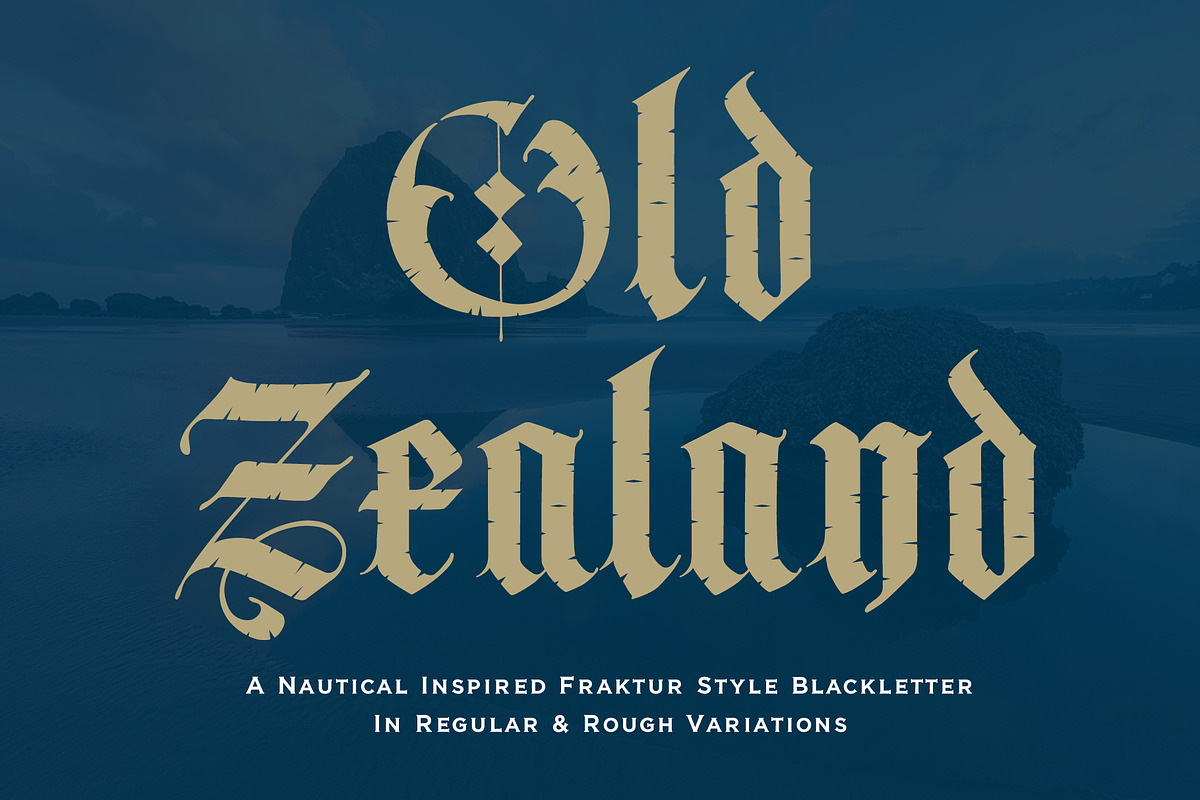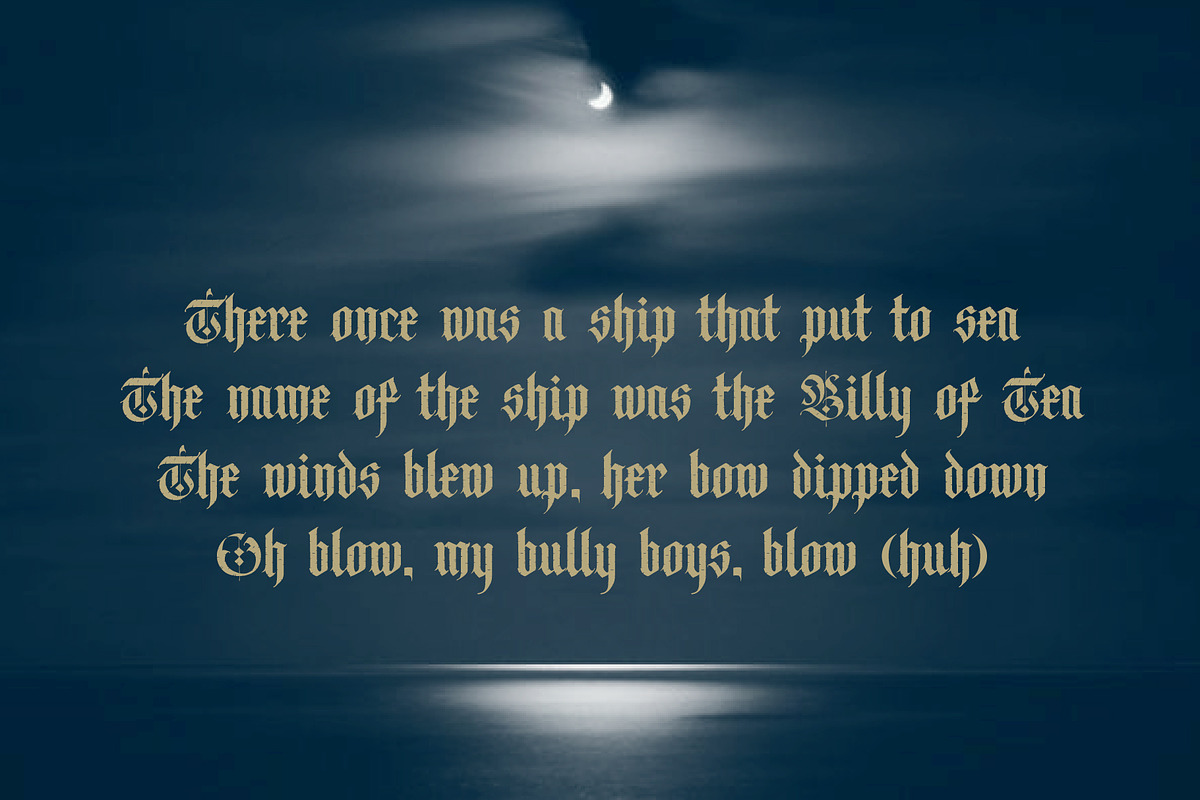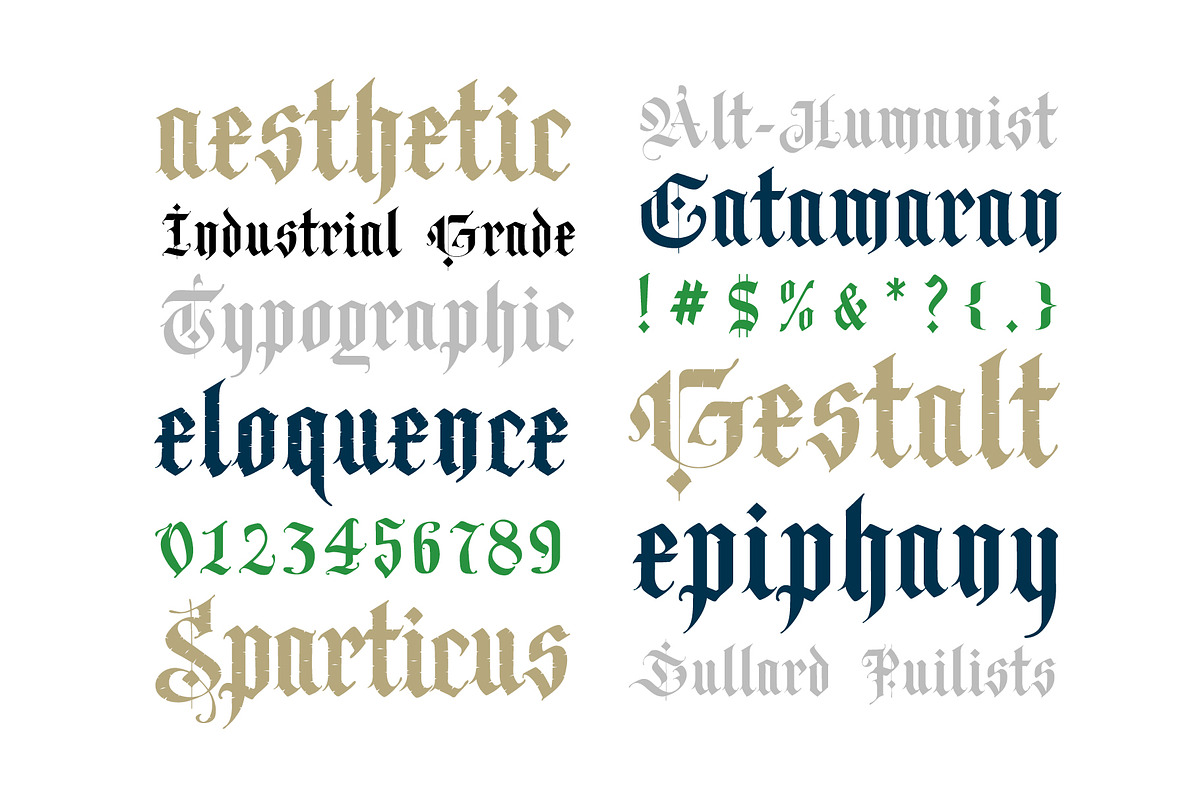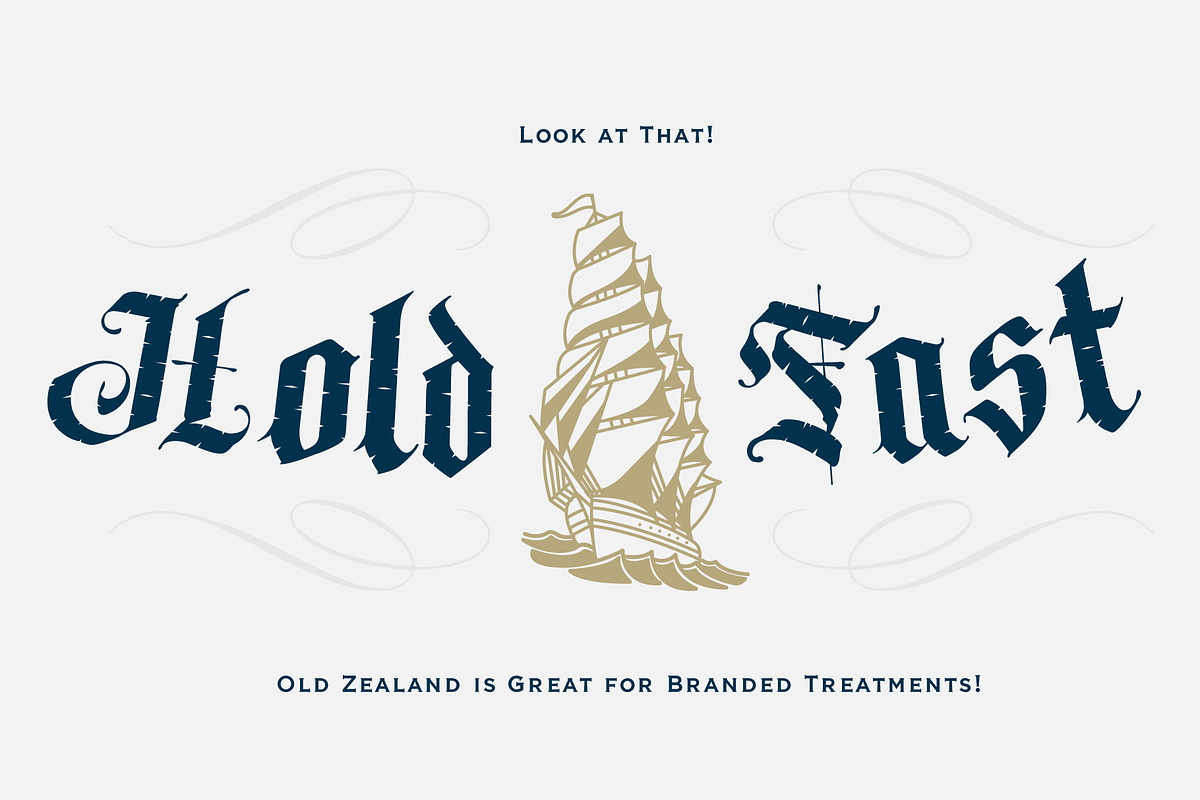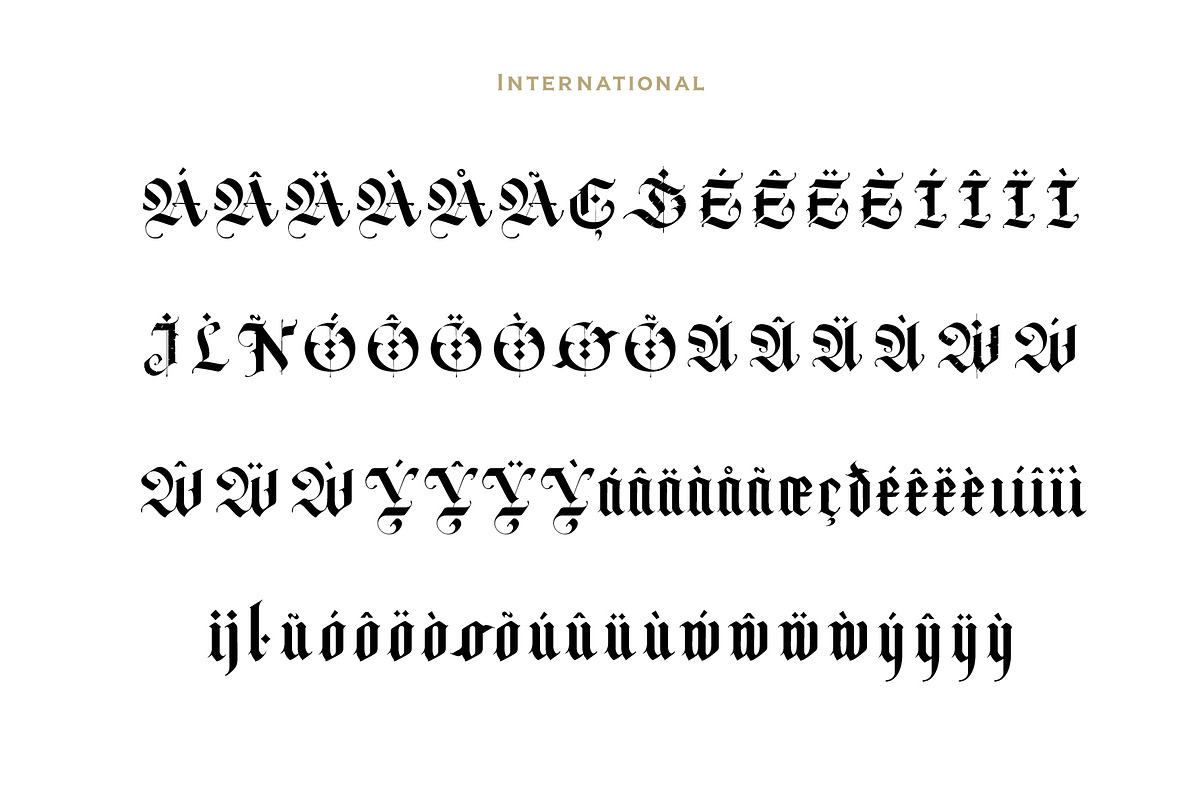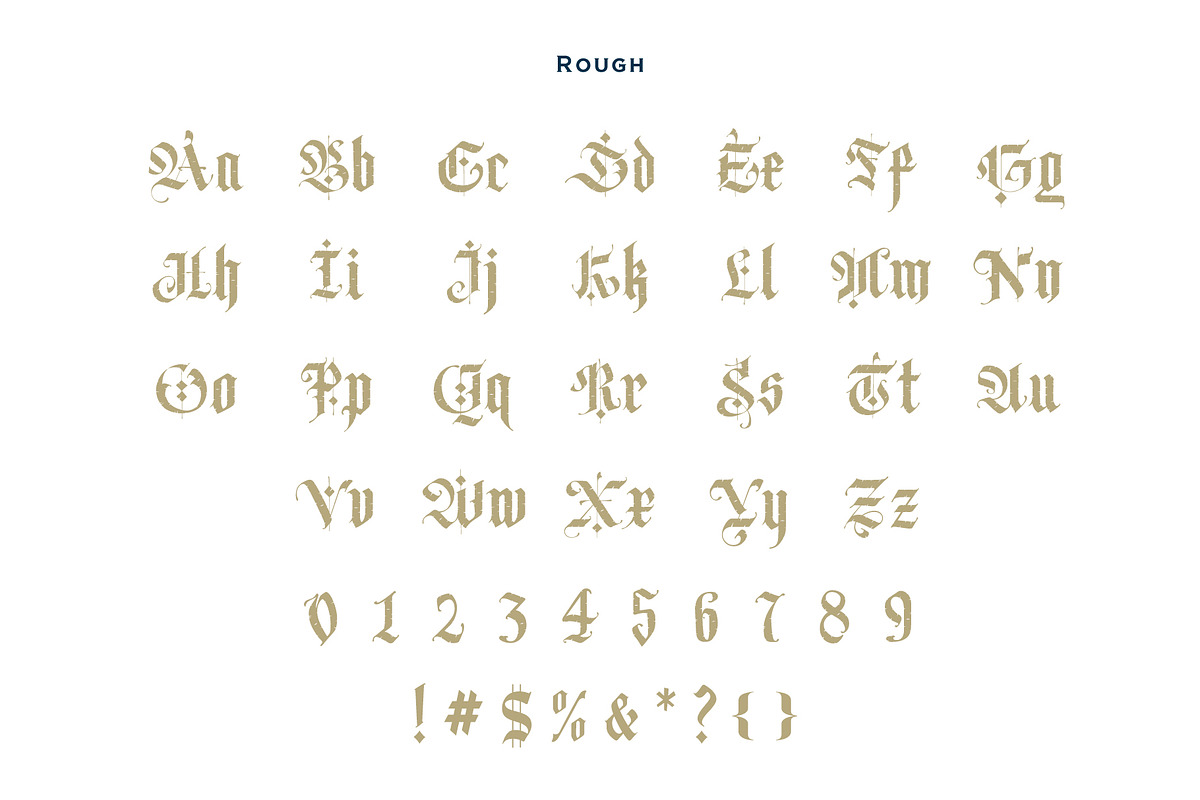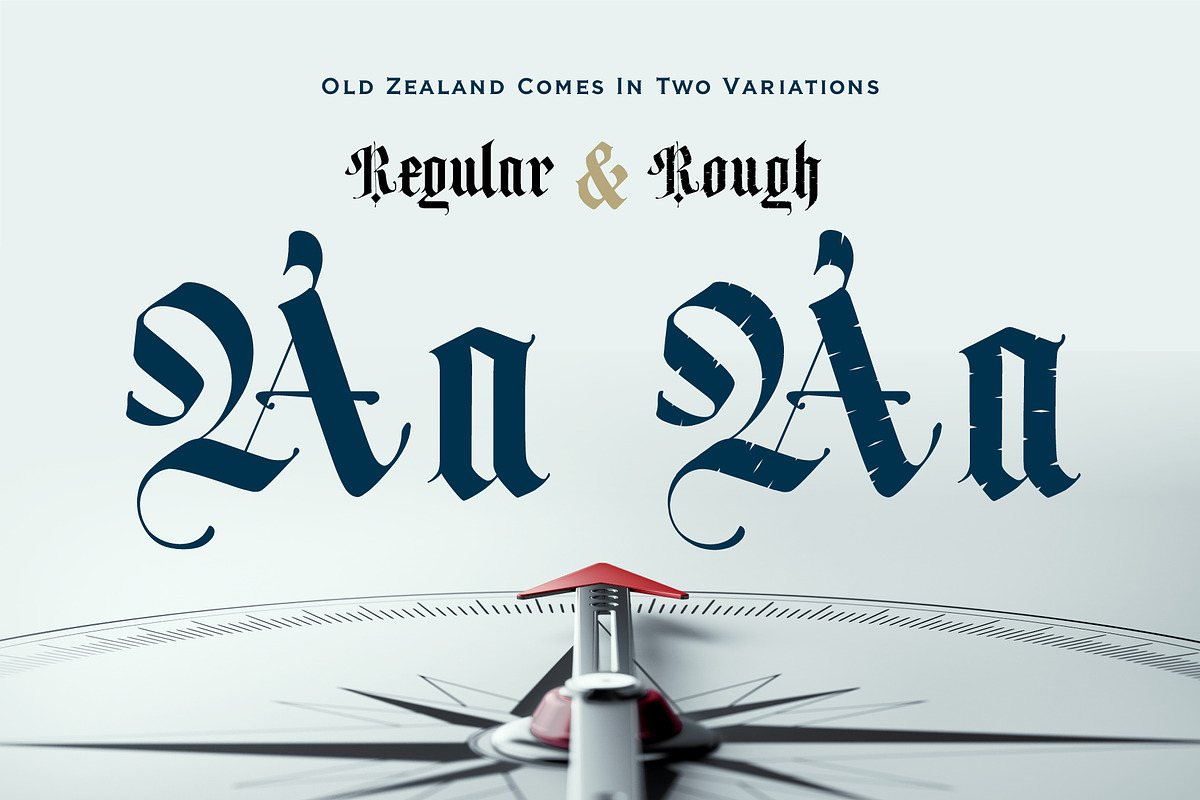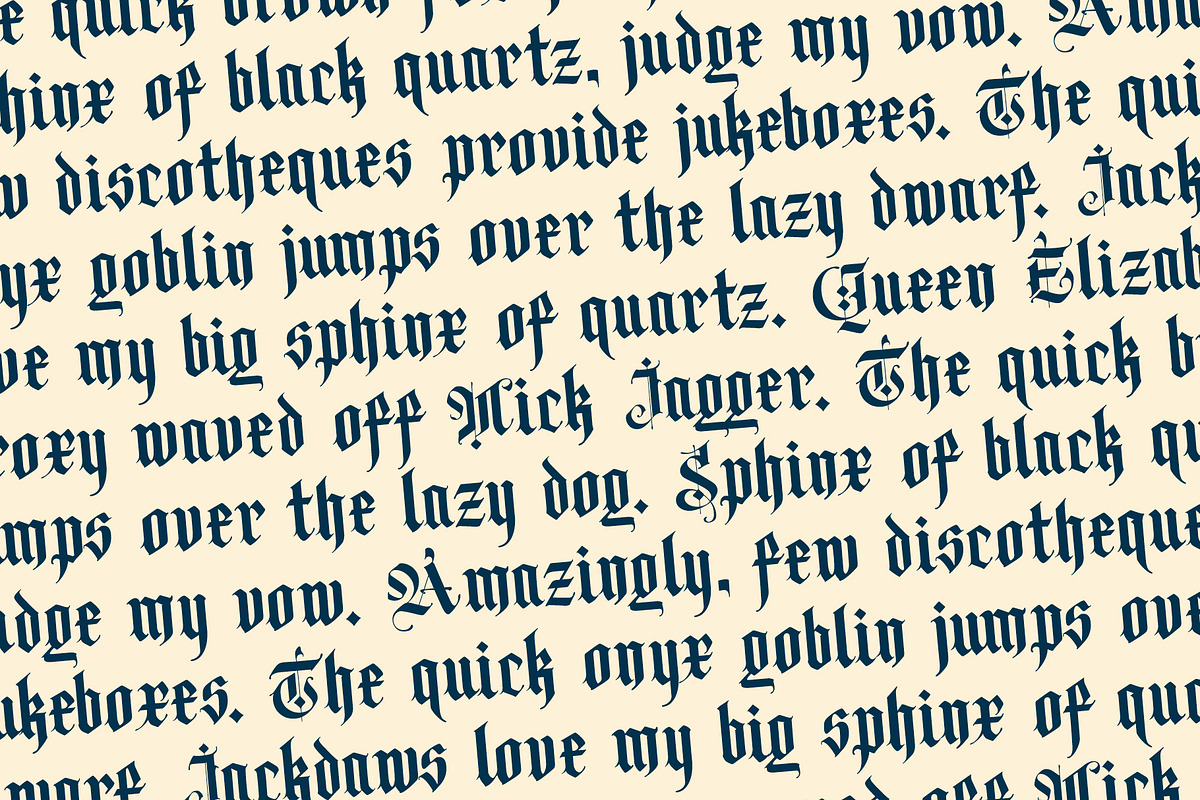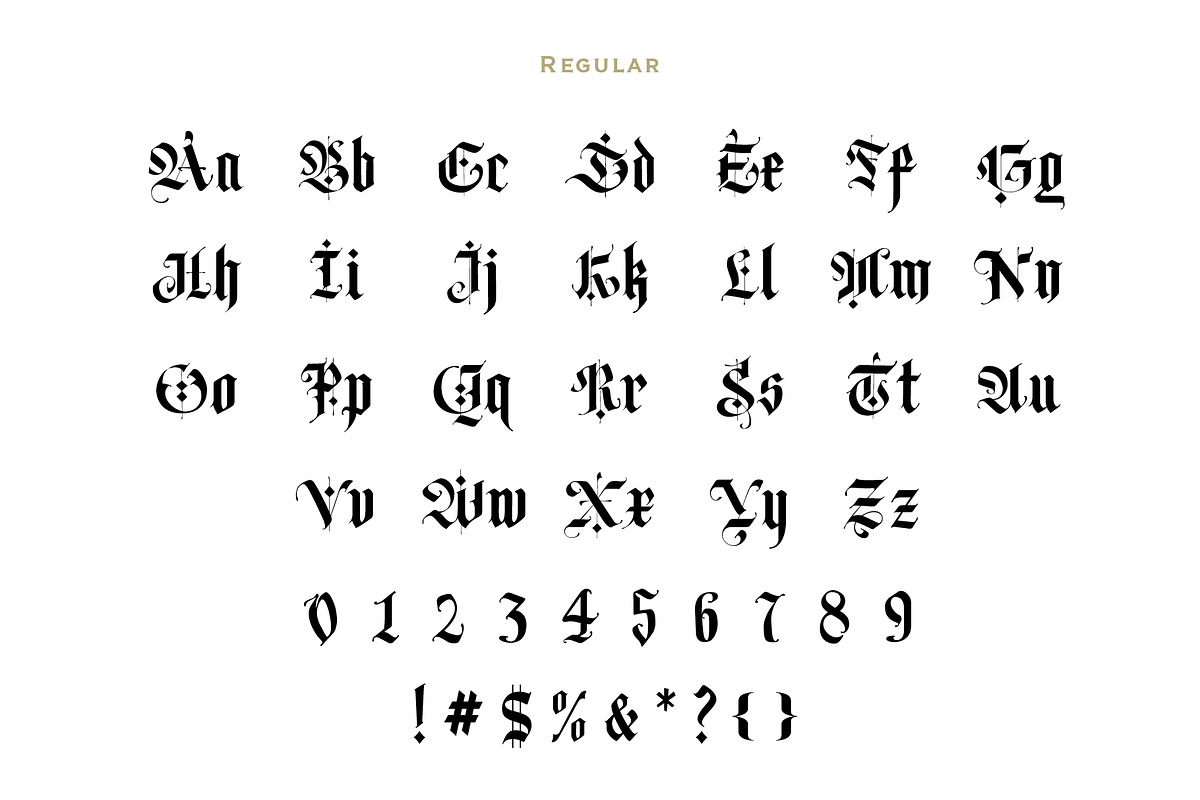
Old Zealand
A nautical-inspired fraktur blackletter that comes in regular and rough/weathered variations. International support. Named after the smoking skull meme (where the eff is Old Zealand?), New Zealand was named after Zeeland, a province in the Netherlands, by Abel Tasman, the first European explorer to reach it. Tasmania was named after him.
Perfect for an ornate nautical style. A-hoy matey. Enjoy!